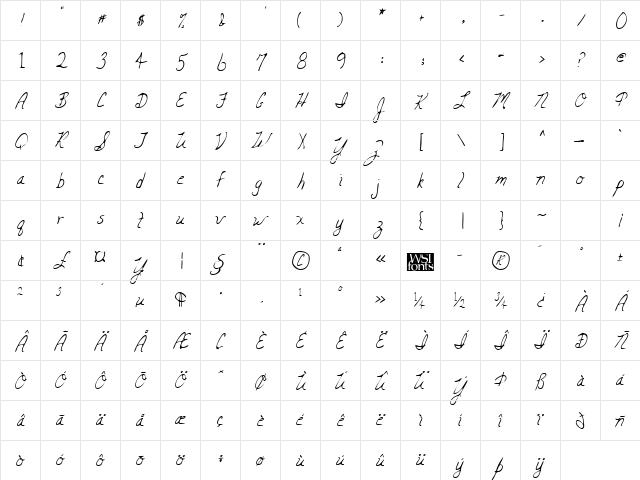
LEHN047 Regular
Design Context for LEHN047 Typeface
LEHN047 is a composed and adaptable typeface that performs quietly and consistently across a wide range of design contexts.